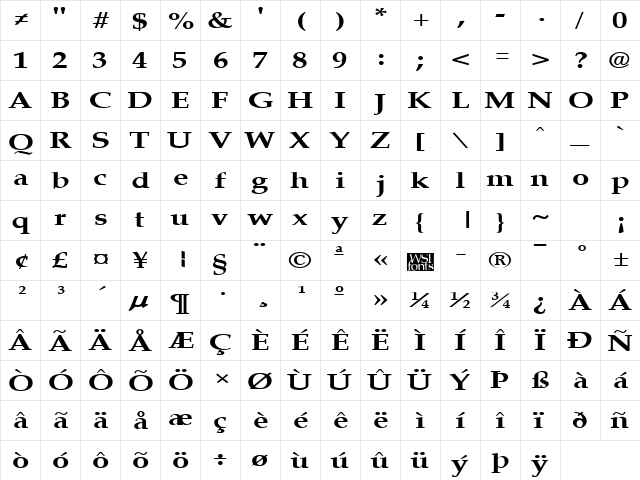
PalisadeBroad Bold
Design Context for PalisadeBroad Typeface
PalisadeBroad offers clean, dependable letterforms without strong stylistic allegiance, making it a practical choice for designers who need flexibility. The heavy weight commands attention and anchors typographic hierarchies.